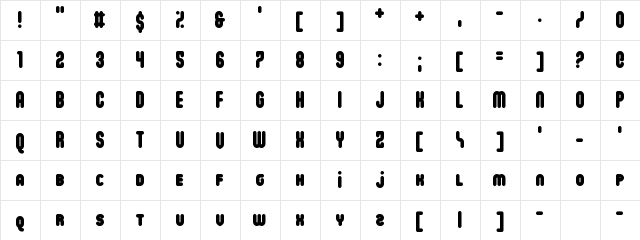
Hors D'oeuvres The Garter Regular
Design Context for Hors D'oeuvres The Garter Typeface
Hors D'oeuvres The Garter takes a measured approach to typography — its balanced proportions and neutral character make it a reliable workhorse for both digital and print work.
Pro Tip: Use Hors D'oeuvres The Garter in both headline and body roles to test its range before committing to a single application.